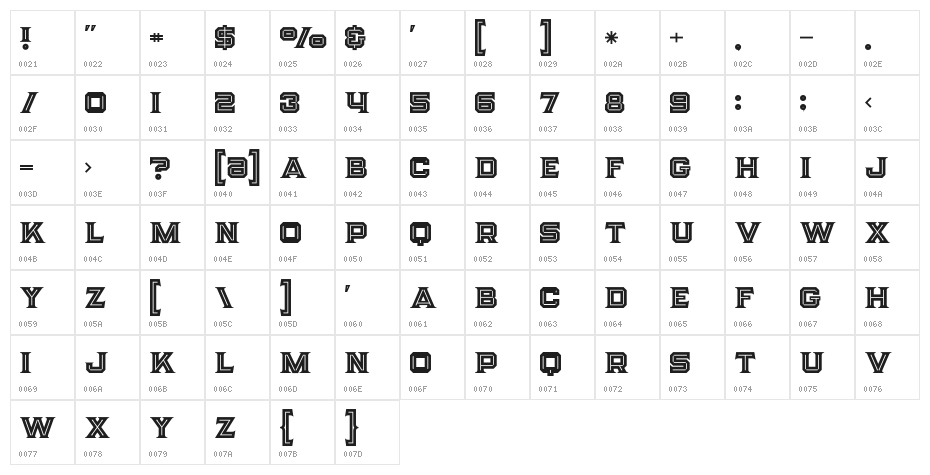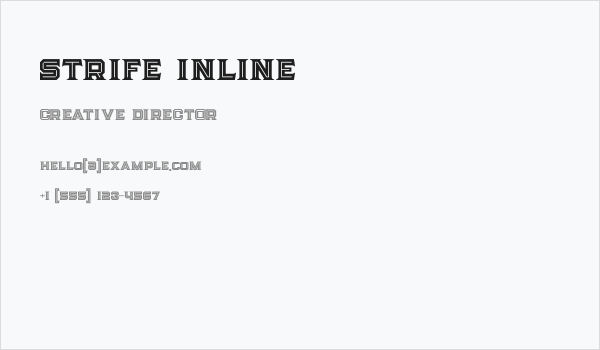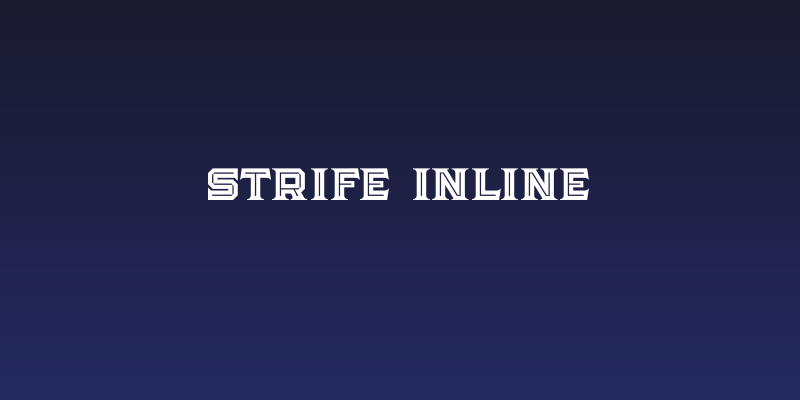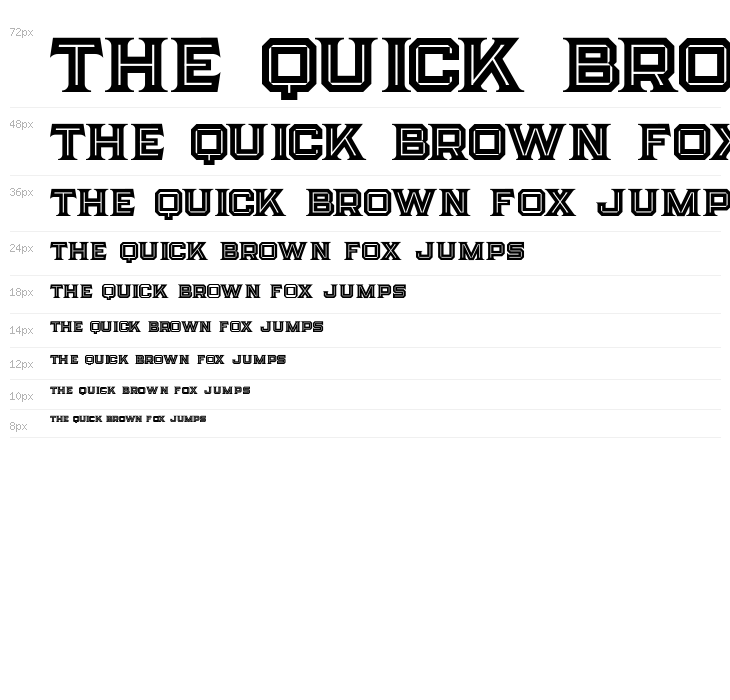
Strife Inline Font
Strife Inline Description
This font features a bold, geometric design with an inline style that creates a striking visual effect. The characters are structured with sharp angles and clean lines, giving them a modern and industrial appearance. The inline detail adds depth and dimension, making each letter stand out. The uppercase and lowercase letters maintain a consistent style, while the numerals and special characters are designed to complement the overall aesthetic. This font is ideal for projects that require a strong, impactful look.
| Proposed Projects | Ideal for branding, posters, headlines, and any design requiring a strong visual impact. |